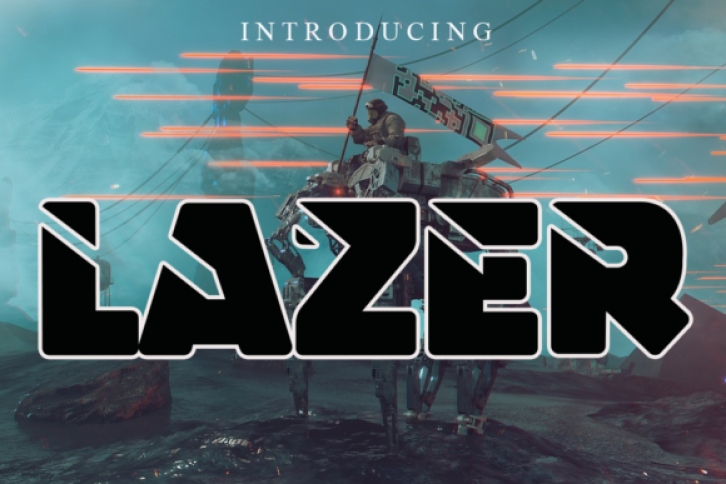
Lazer is a bold and chunky lettered display font. It celebrates abstract shapes in all their eclectic brilliance. Add this font to your creative ideas and notice how it will make them stand out!